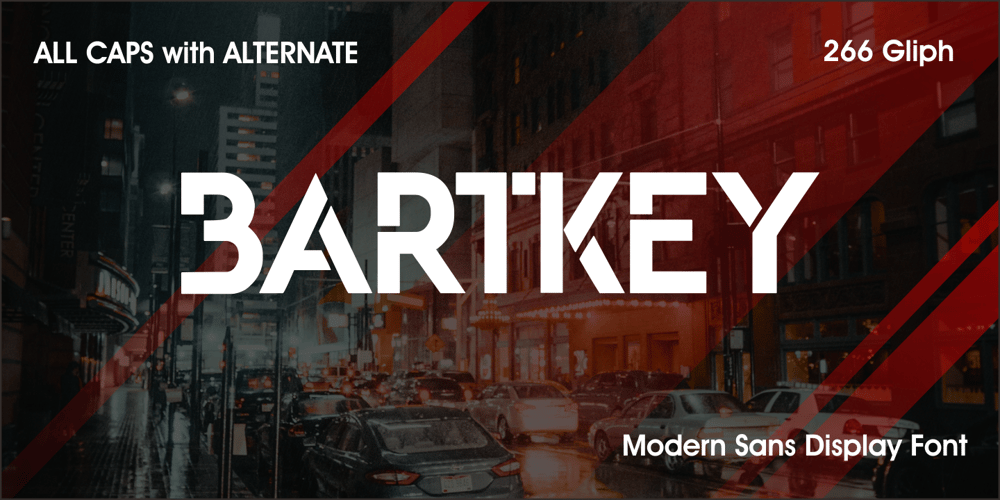
Bartkey
Bartkey font
Bartkey Font Family was designed by Zamjump and published by Zamjump. Bartkey contains 1 styles and family package options. Bartkey is a modern sans serif display all caps font. The font is distributed in OpenType format including kerning and other features.Ideally suited for a space mood, future tech and innovative products great for big titles and small subtexts. Combine with images to really wow them humans.